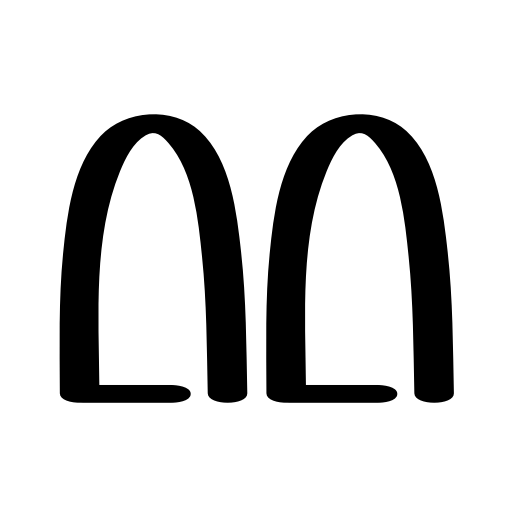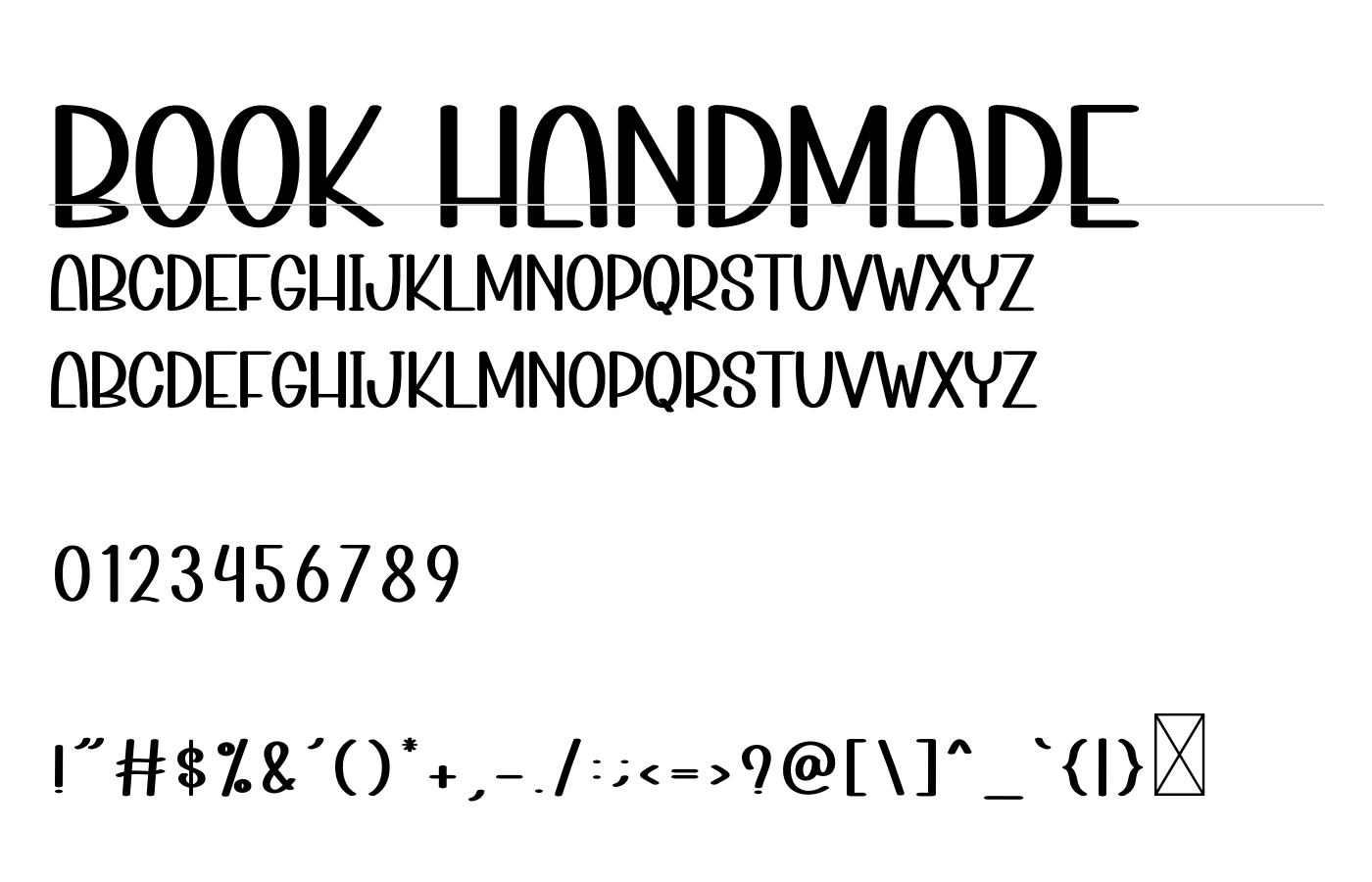
Book Handmade Font is a playful and creative sans serif typeface with a casual, hand-drawn feel. Its tall, slightly condensed letterforms and unique character shapes give it a friendly and approachable personality, making it ideal for artistic, informal, or children’s projects, as well as branding that seeks a personal touch. The font’s clear readability and distinctive style make it perfect for headlines, logos, and packaging that want to convey warmth and creativity.
Book Handmade Font